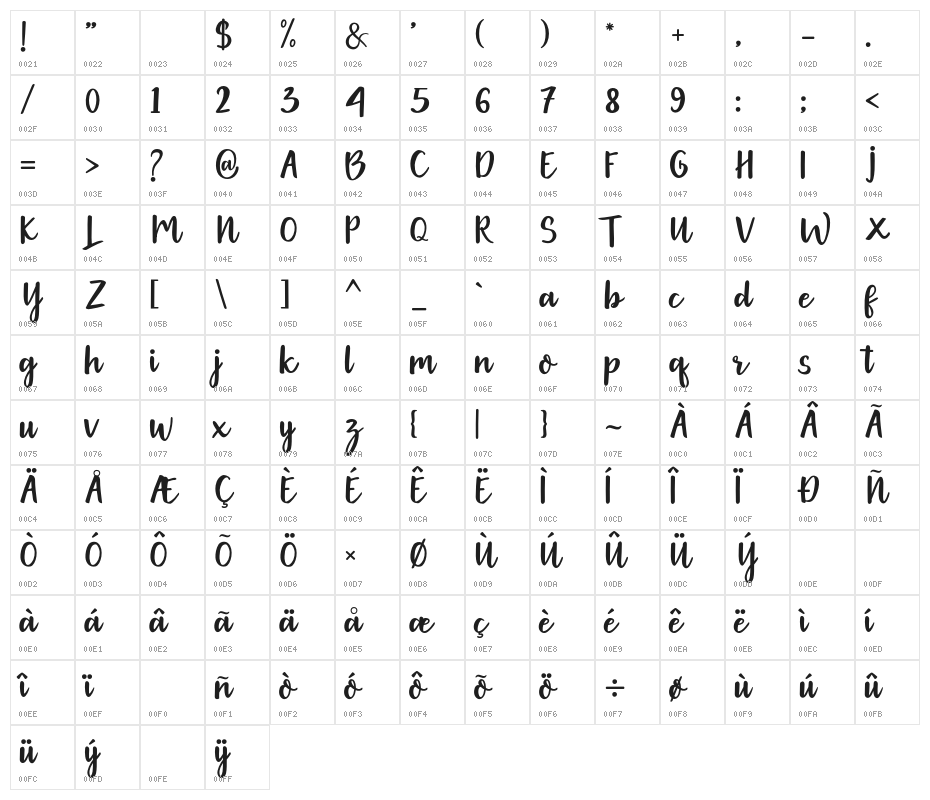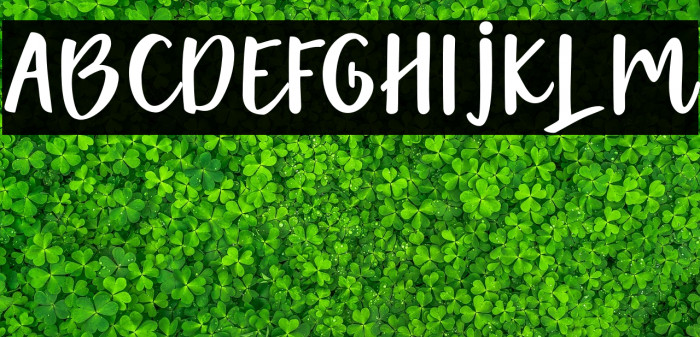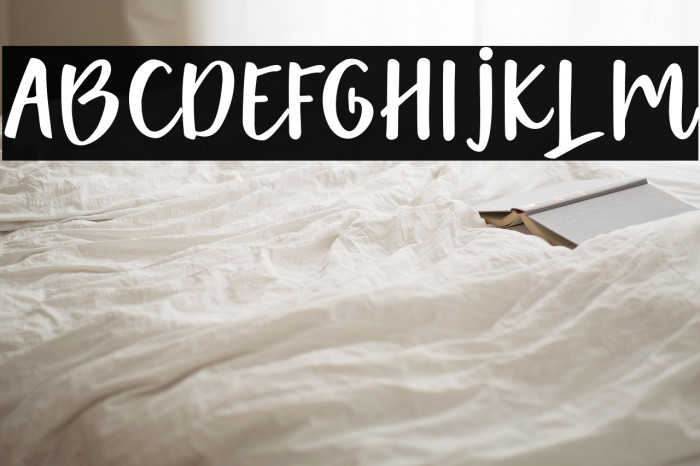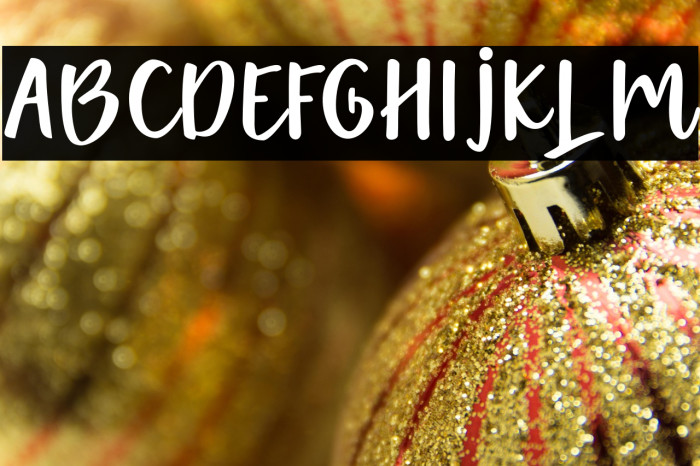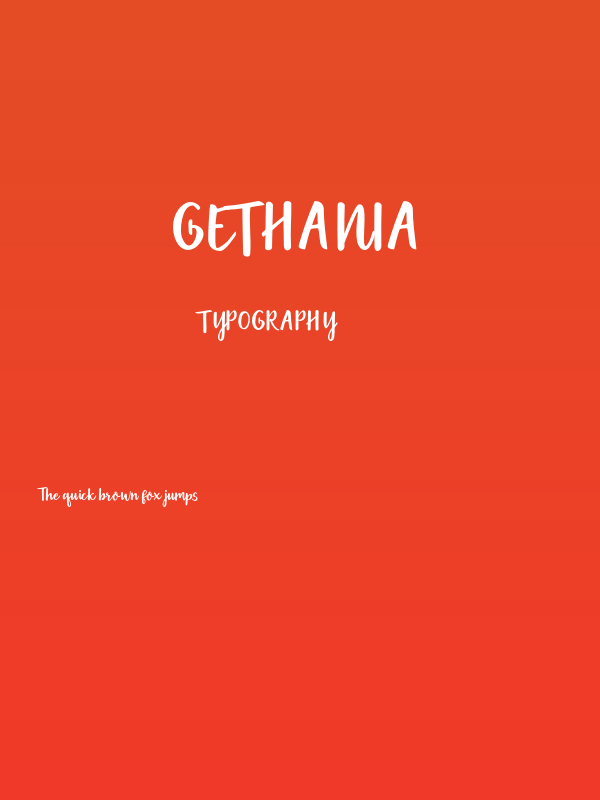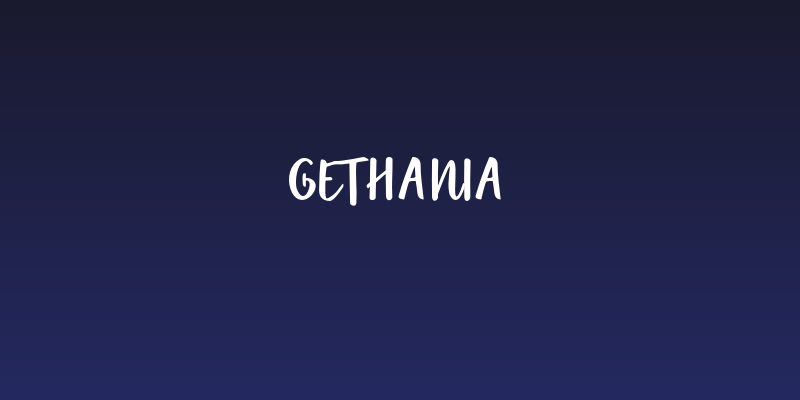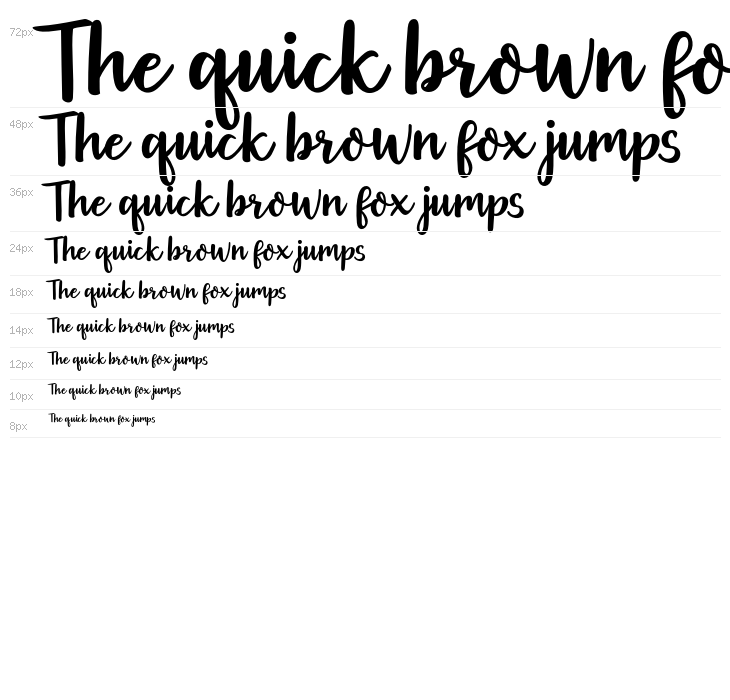
Gethania Font
Gethania Description
This font features a lively and expressive handwritten style with a playful and casual appearance. The uppercase letters are bold and slightly slanted, giving a sense of movement and energy. The lowercase letters maintain a consistent flow with smooth curves and rounded edges, enhancing the handwritten feel. Numbers are clear and legible, with a slight tilt that matches the overall style. Special characters are creatively designed, adding to the font's charm. The font's overall aesthetic is friendly and approachable, making it suitable for a variety of creative projects.
| Proposed Projects | Ideal for greeting cards, invitations, posters, and branding projects that require a personal touch. |